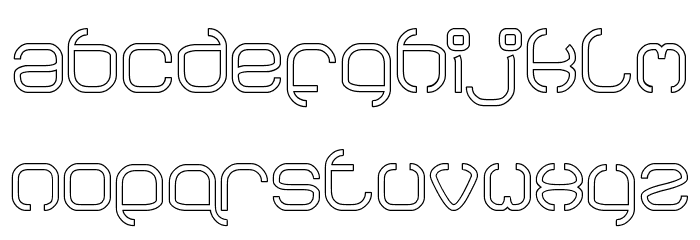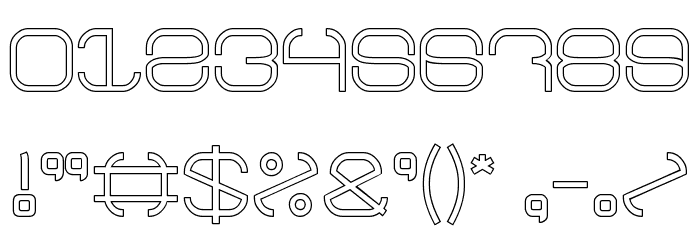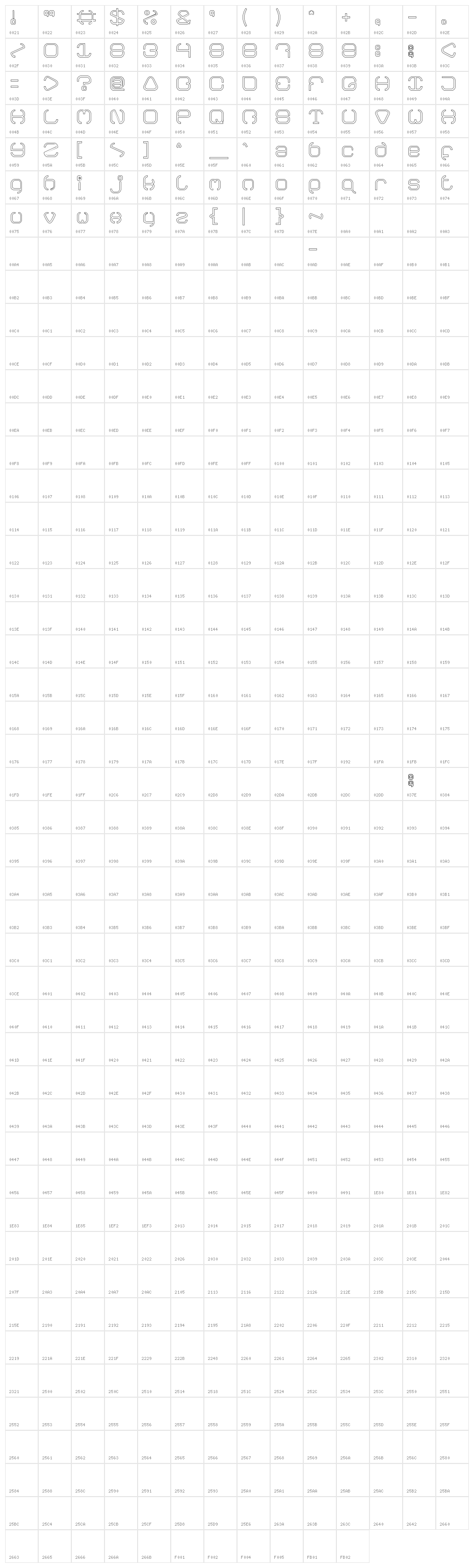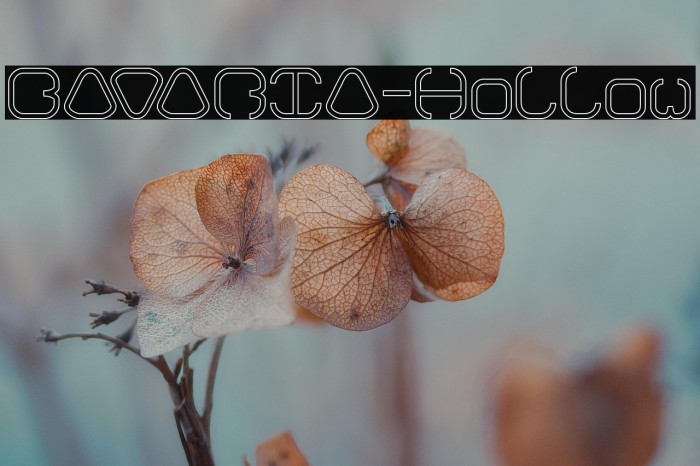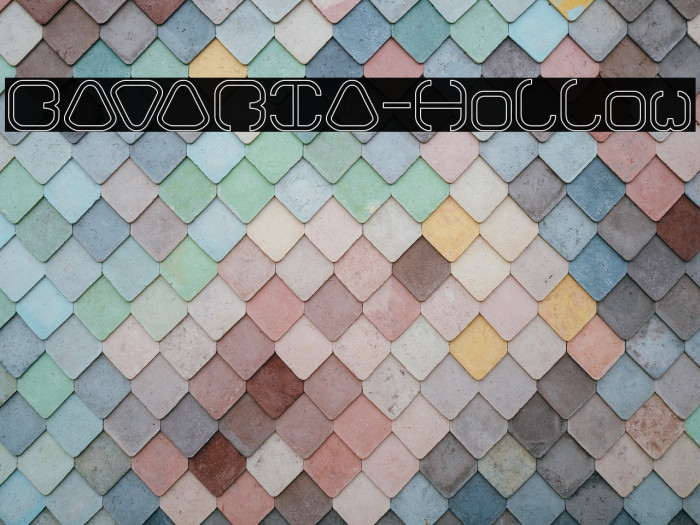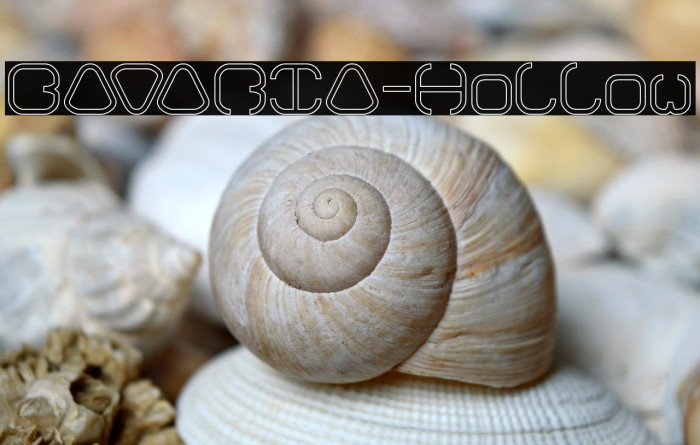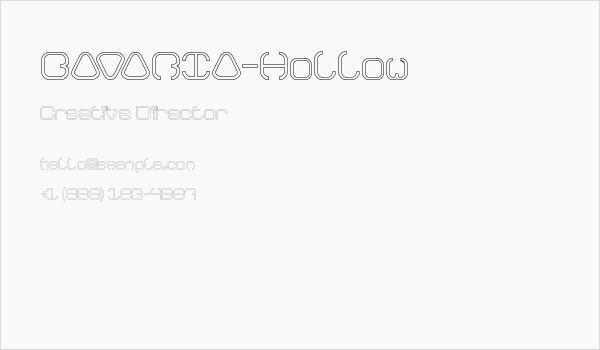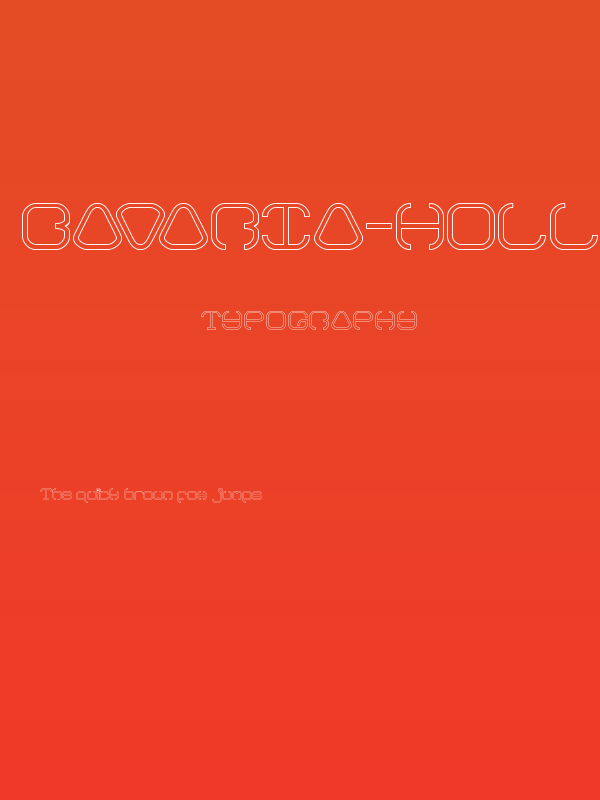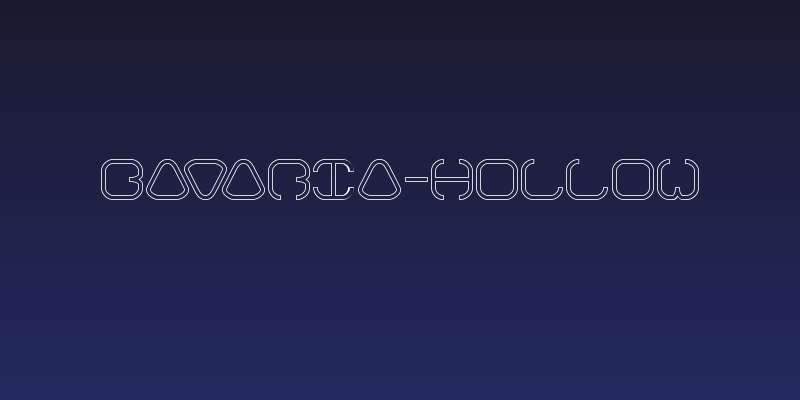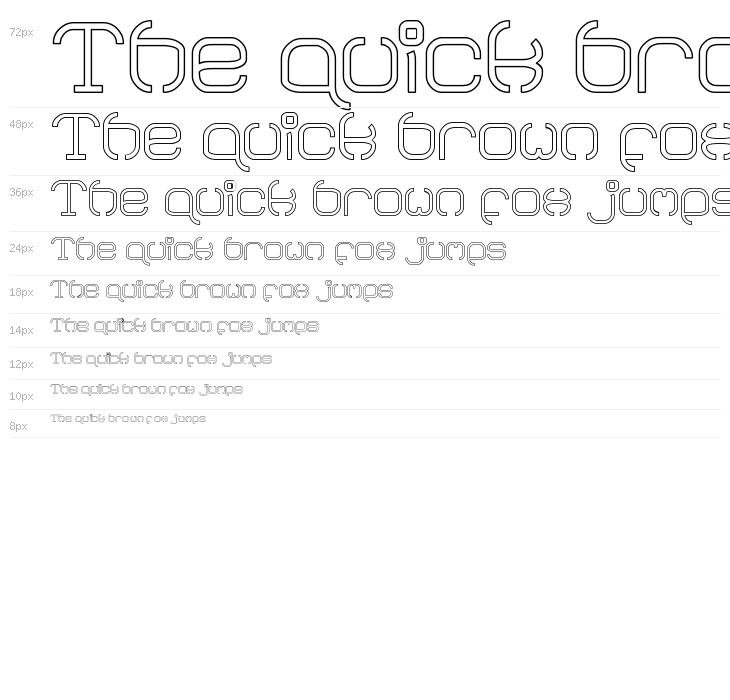
BAVARIA-Hollow Font
This font features a unique hollow design with a futuristic and geometric aesthetic. The characters are outlined, creating a sense of depth and dimension. Each letter is crafted with precision, showcasing a blend of angular and rounded elements. The uppercase and lowercase letters maintain a consistent style, with a focus on symmetry and balance. Numbers and special characters are designed to match the overall theme, providing a cohesive look. The font's hollow nature makes it ideal for creating striking visual effects, especially when layered over contrasting backgrounds.
A futuristic, hollow, and geometric font with a unique outlined style.
- Proposed Projects: Ideal for sci-fi themed designs, modern branding, digital artwork, and innovative advertising campaigns.